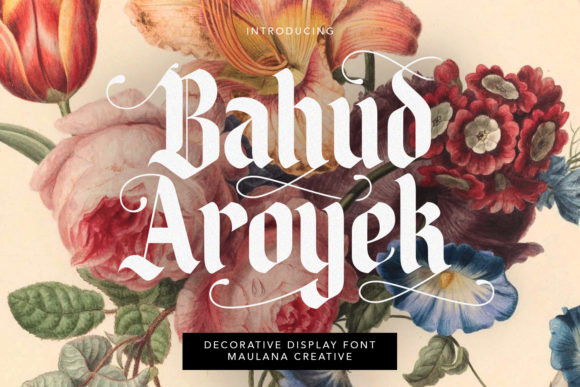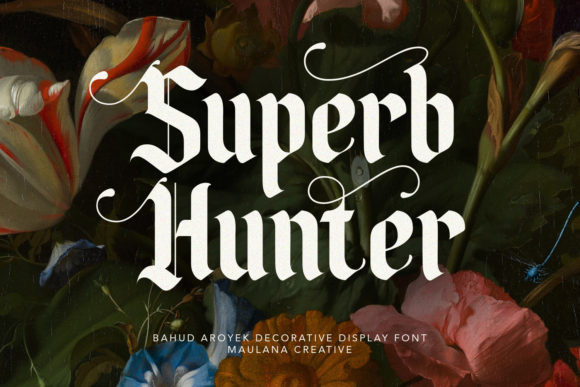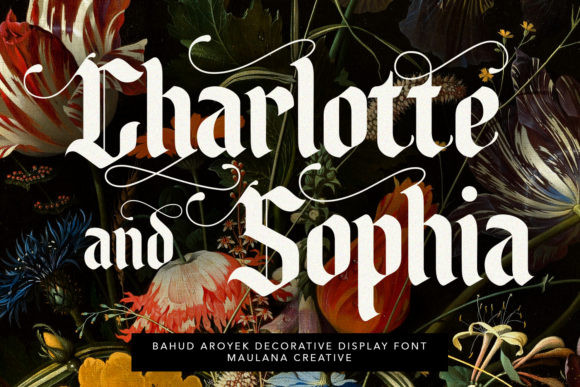
Bahud Aroyek Font
Bahud Aroyek is an incredibly elegant, bold and unique display font. Masterfully designed to become a true favorite, this font has the potential to bring each of your creative ideas to the highest level!